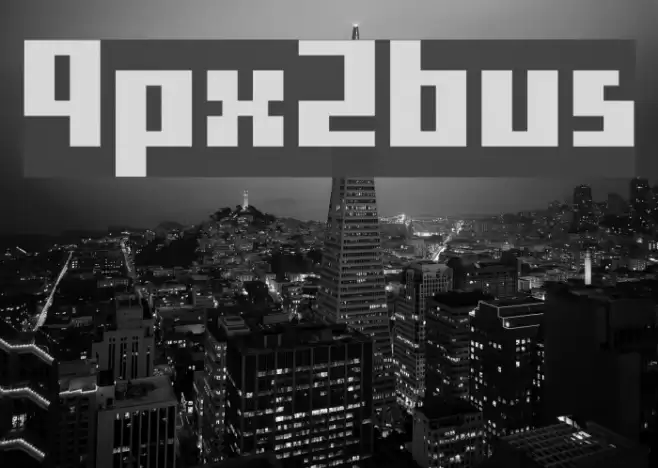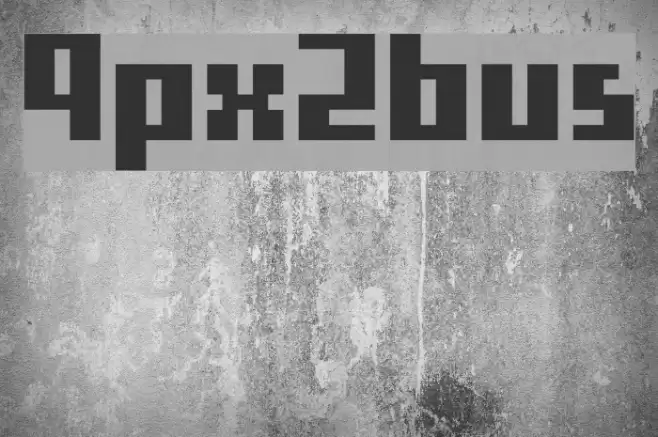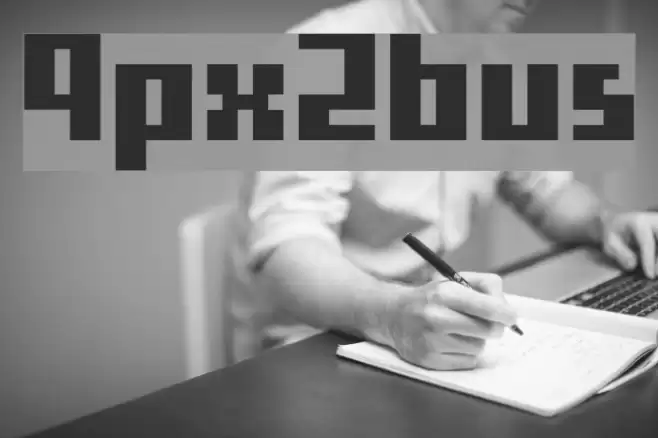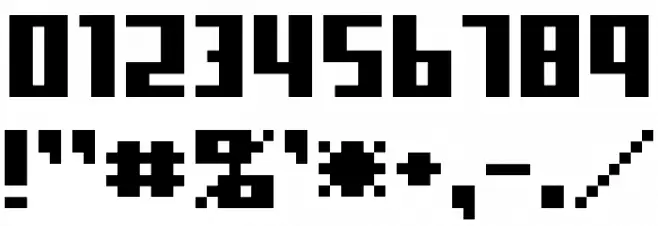
9px2bus Font
9px2bus Description
This font features a bold, pixelated style reminiscent of early digital and arcade aesthetics. Each character is composed of square blocks, creating a uniform and grid-like appearance. The uppercase and lowercase letters maintain a consistent height, contributing to a cohesive look. The numerals and special characters follow the same pixelated design, ensuring visual harmony across all glyphs. This font's distinct, retro vibe makes it ideal for projects seeking a nostalgic or tech-inspired theme.
A bold, pixelated font with a retro digital aesthetic from Uncategorized fonts.
- Proposed Projects: Ideal for video game design, retro-themed posters, digital art projects, and tech-inspired branding.
- Overall Style: Retro, Digital